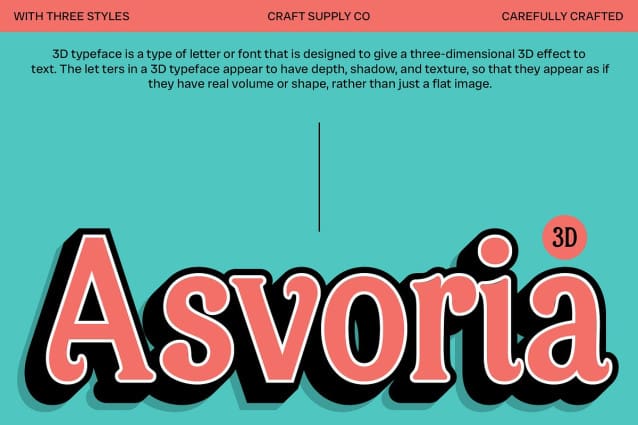
Asvoria 3D Font
Asvoria 3D Font is a serif font that captures the essence of classic design with a retro twist. Its elegant letterforms and distinctive ornaments are inspired by past eras, bringing a timeless sense of nostalgia and beauty to your designs. The retro style of this font exudes sophistication and charm, making it perfect for projects that celebrate classic elegance.
Enhanced with a Striking 3D Effect The addition of a 3D effect elevates Asvoria 3D by adding depth and dimension to its traditional serif design. This visual enhancement creates an illusion of volume and texture, making the letters stand out vividly against any background. The 3D effect infuses the font with a modern, dynamic edge that contrasts beautifully with its classic roots.
Merging Classic Beauty with Modern Visuals Asvoria 3D’s unique combination of retro elegance and 3D depth results in a font that seamlessly blends classic beauty with contemporary visual effects. This fusion makes it ideal for designs that require both a sophisticated appearance and a striking, standout impact.
Versatile for a Range of Design Needs Asvoria 3D’s retro-inspired serifs and dramatic 3D effect make it a versatile choice for a variety of applications. From luxury branding to artistic posters, this font provides an attractive and sophisticated appearance that enhances both print and digital designs.